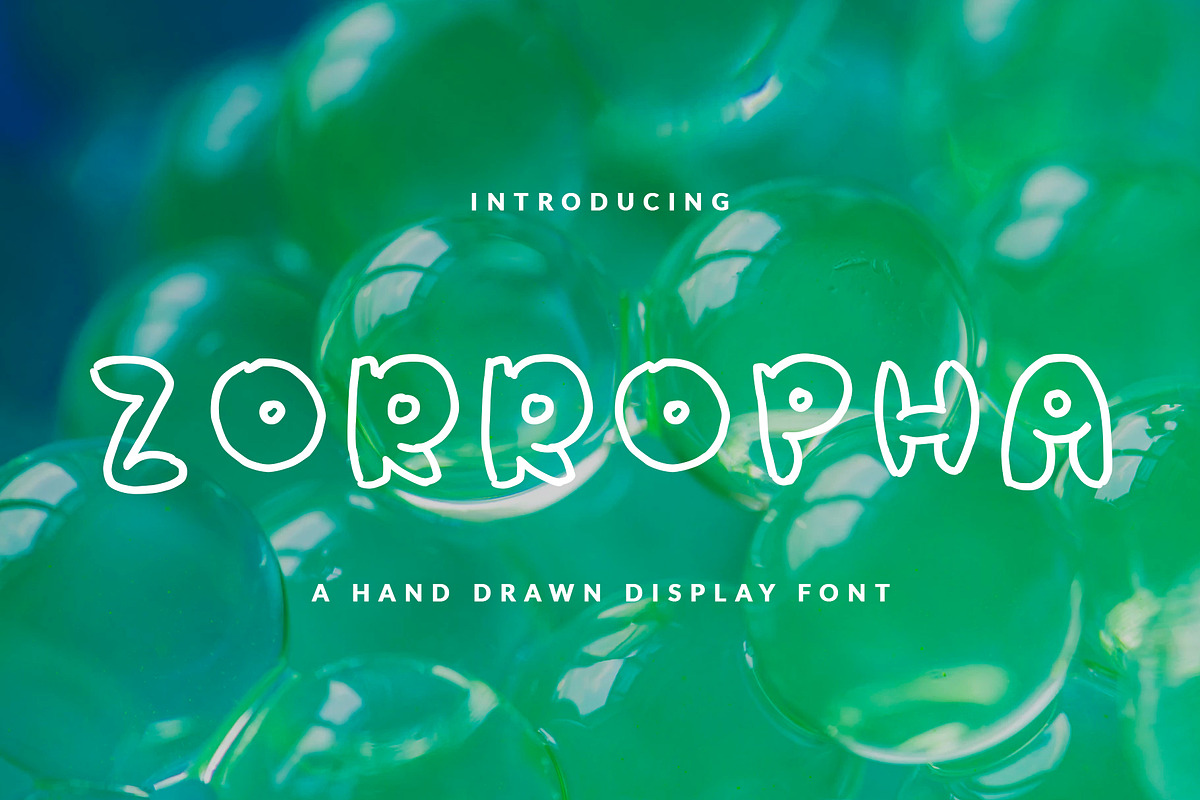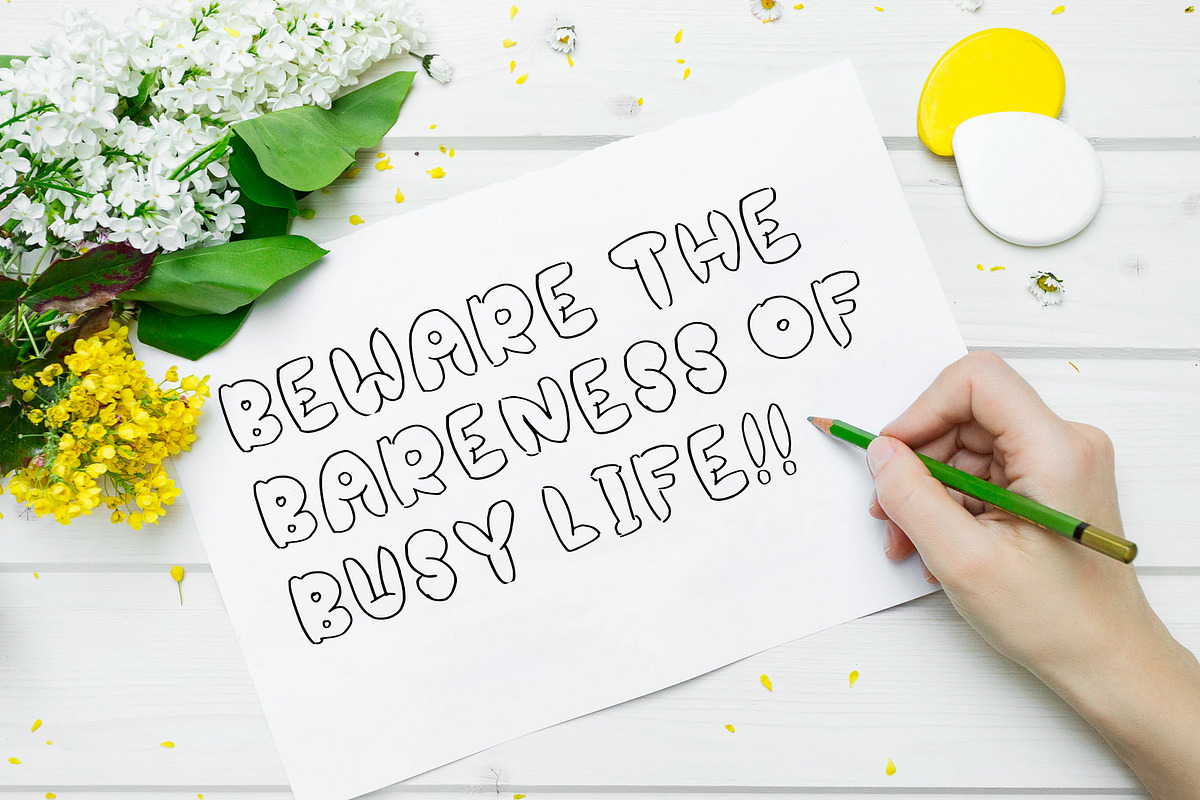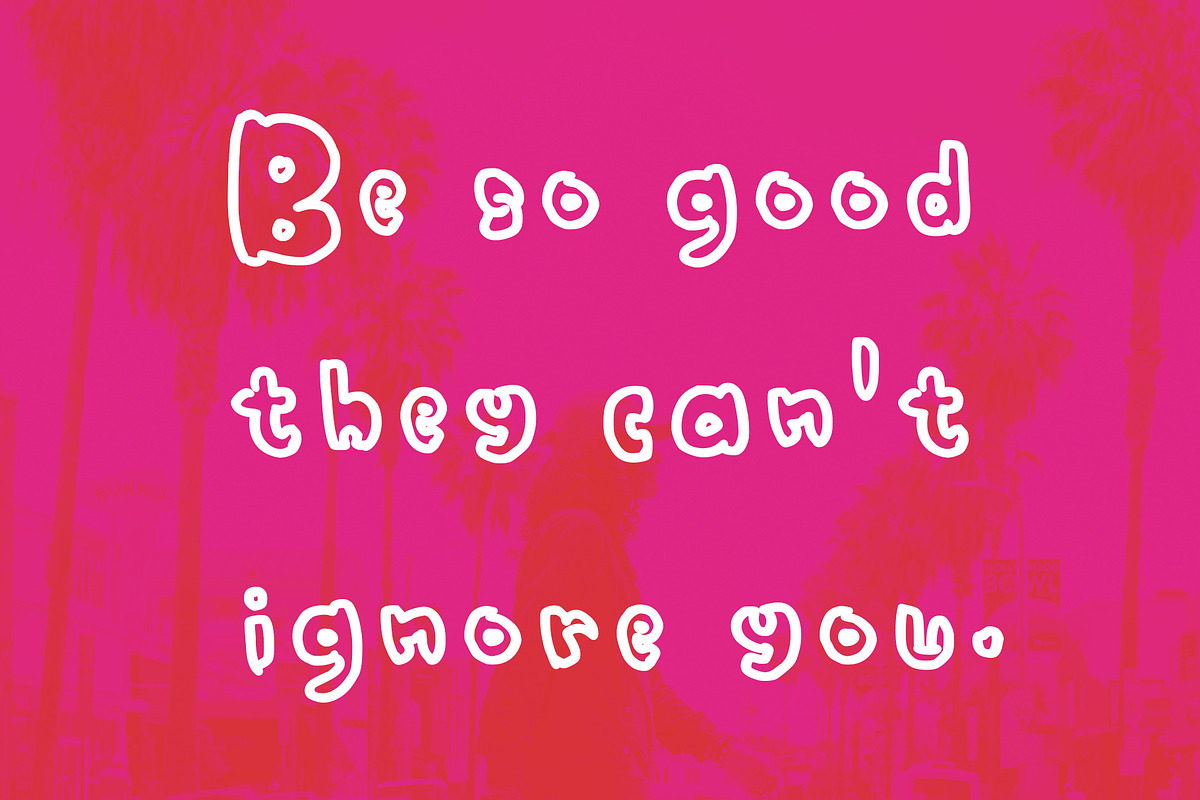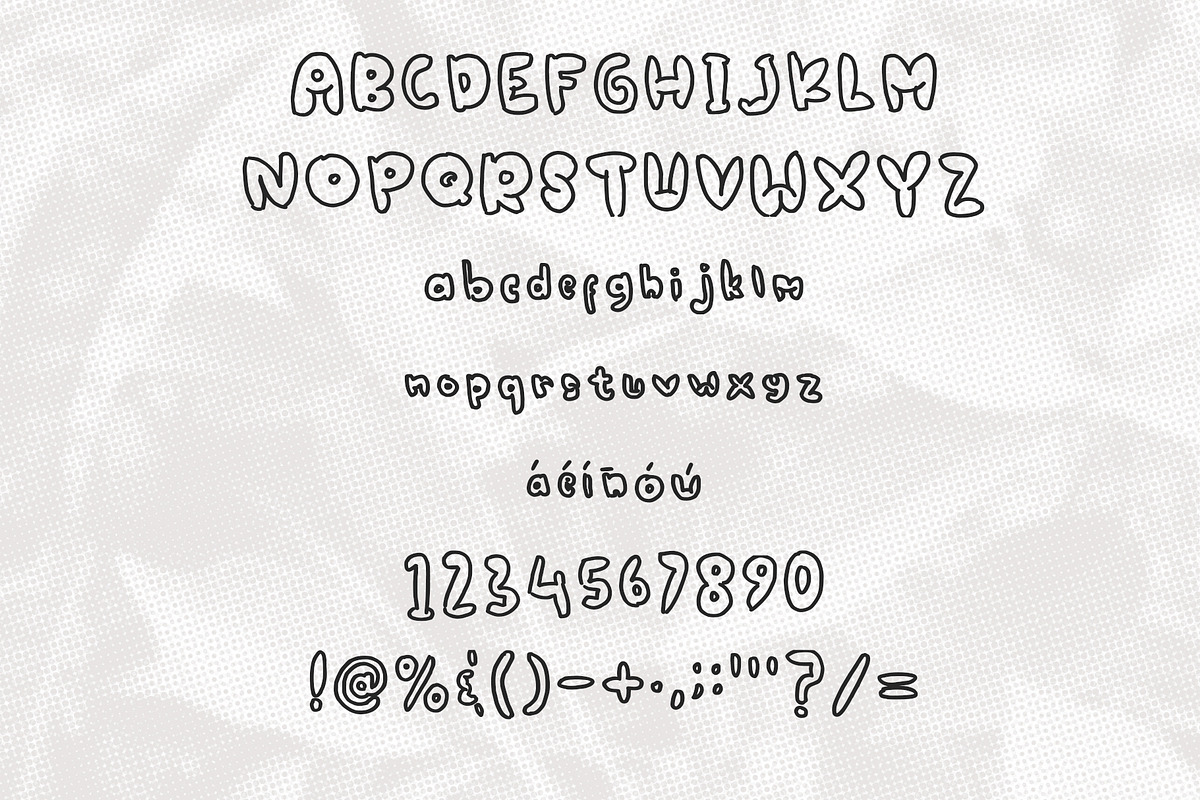
ZORROPHA BUBBLE FONT HEADER
Sans serif hand-drawn display font called WRINKLE was designed for modern, classic, bold, unique and other style also fit for Header website, general use for header text, kids stories, books, poems and other long text
- Zorropha Regular
ZORROPHA BUBBLE FONT HEADER by NadaNora fits naturally into Branding, posters, packaging, typography.